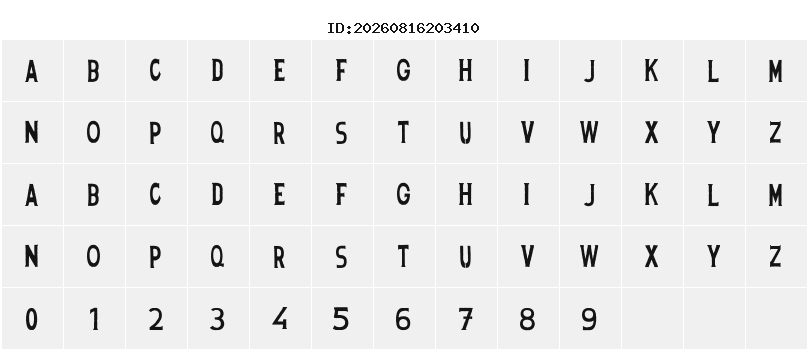
Spanish Stencil Preview
• Font Name: Spanish Stencil
• Full Font Name: Spanish Stencil
About Spanish Stencil.ttf
Spanish Stencil.ttf is a modern, elegant sans-serif font designed for ultimate readability and visual harmony. Perfect for branding, headlines, web design, and print materials.